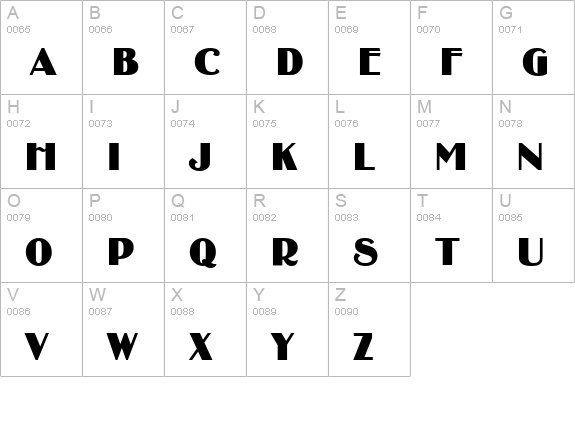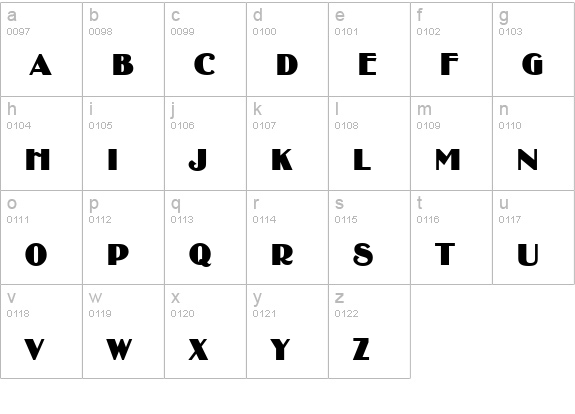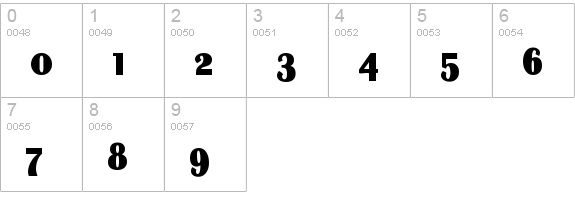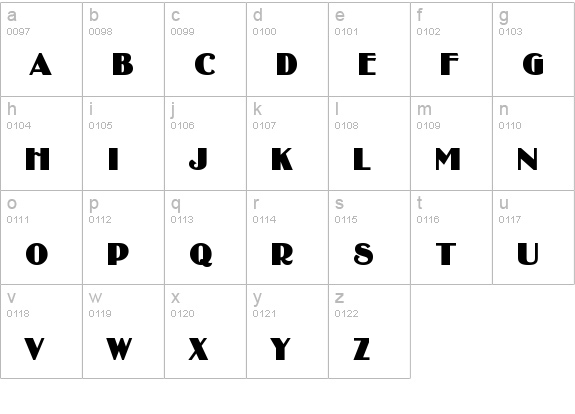
BirminghamSoft-Caps Font Details
Introducing BirminghamSoft-Caps font, a versatile and stylish typeface that exudes elegance and sophistication. This unique font features soft, rounded edges and captivating letterforms that are perfect for adding a touch of charm to any design project. With its clean lines and modern aesthetic, BirminghamSoft-Caps font is sure to make a statement and leave a lasting impression. Best of all, BirminghamSoft-Caps font is available for free download at FontsMarket.com. Whether you're working on a branding project, designing a poster, or creating a stylish invitation, this font is a must-have addition to your collection. Download BirminghamSoft-Caps font today and elevate your designs with its timeless appeal and effortless charm.